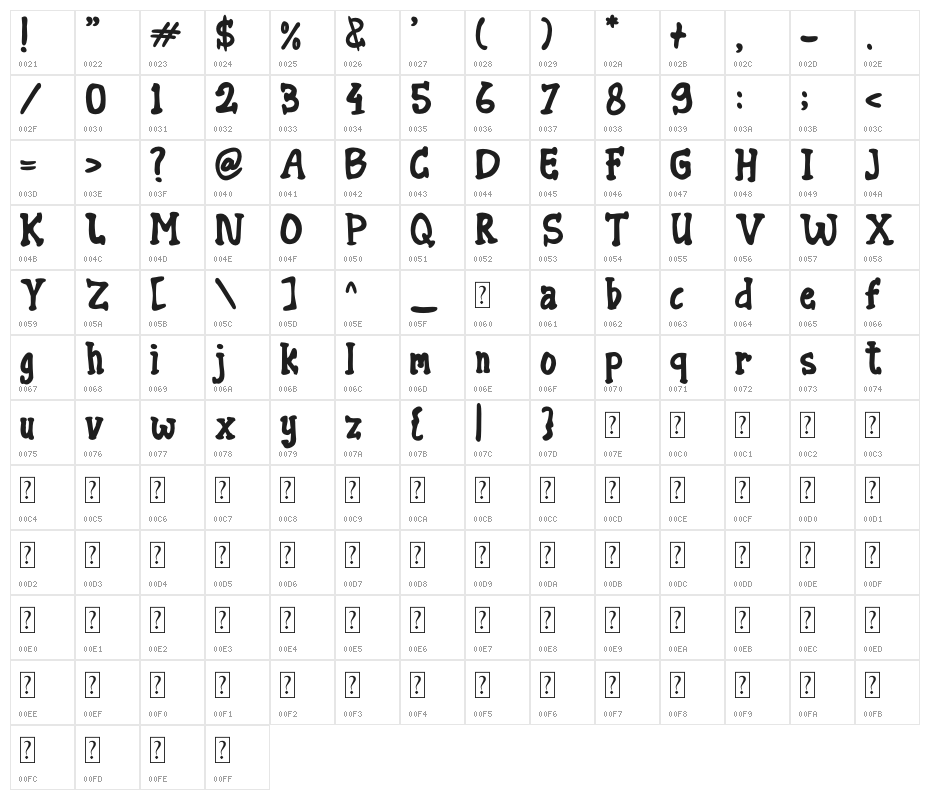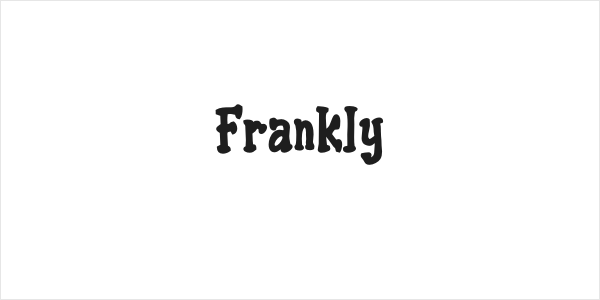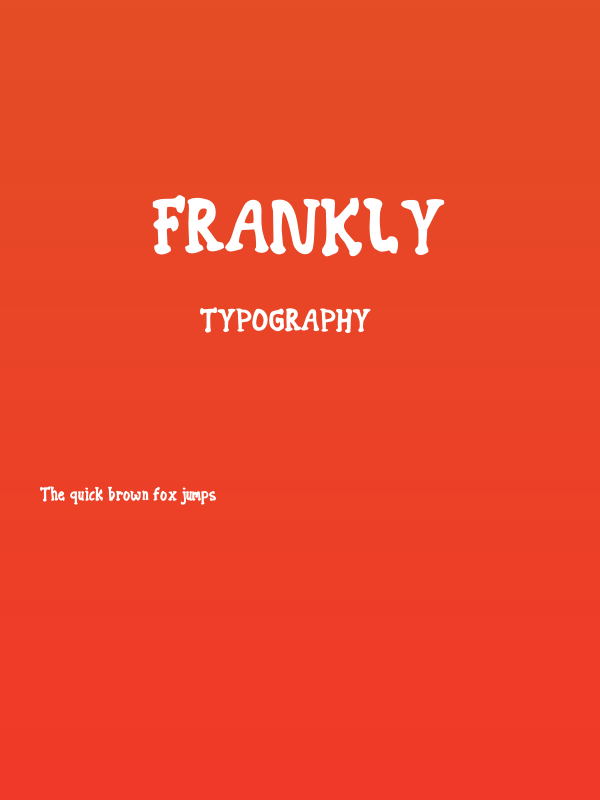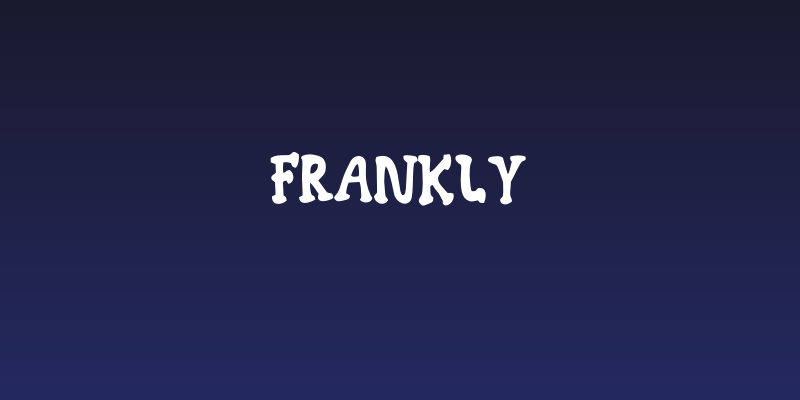
Frankly Font
Frankly Description
This font features a playful and bold style with a hand-drawn appearance. The letters are thick and rounded, giving them a friendly and approachable look. The uppercase and lowercase characters maintain a consistent style, with slight variations that add to the whimsical feel. Numbers and special characters are equally bold and maintain the same playful aesthetic. The overall design is reminiscent of a cartoon or comic book style, making it ideal for projects that require a fun and informal touch.
| Overall Style | Playful, Whimsical, Cartoon-like |
| Use Case | Headlines, Logos, Posters, Invitations |
| Proposed Projects | Ideal for children's books, comic strips, playful branding, party invitations, and any project requiring a fun, informal touch. |